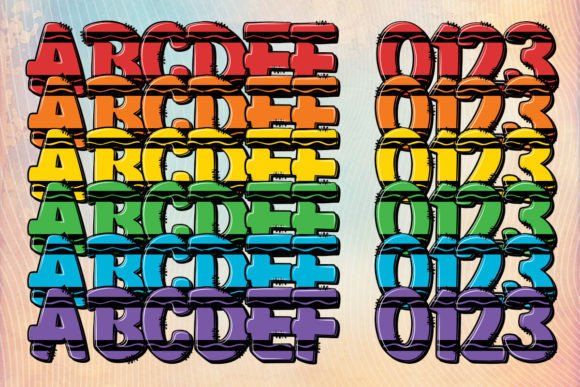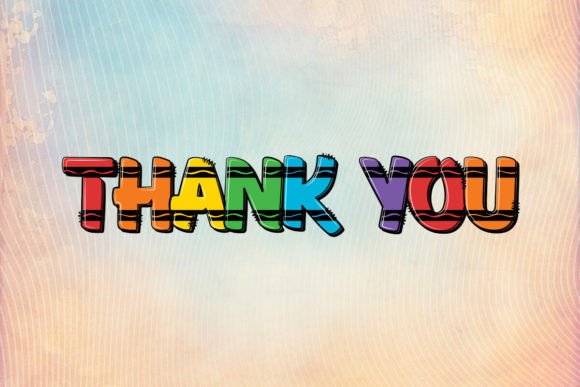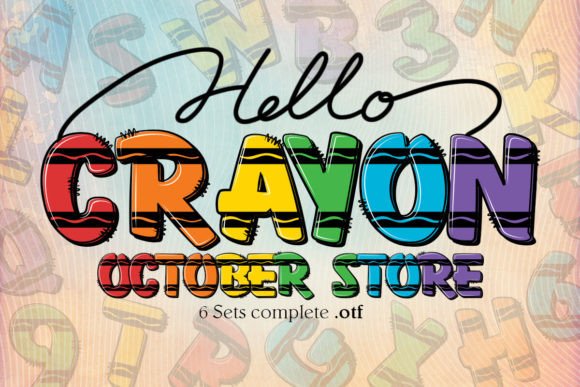
Introducing Crayon Colorful: A Whimsical Font that Unleashes Creativity
Are you ready to add a pop of color and creativity to your DIY projects, crafts, and designs? Look no further than “Crayon Colorful”, a playful font that brings the vibrant world of school artistry to life. This delightful font is perfect for designers, crafters, and artists who want to infuse their work with a sense of imagination and fun.
A Font that Captures the Magic of School Artistry
“Crayon Colorful” is a font that embodies the creativity and imagination of students. With its 6 styles and 6 colors, this font is designed to inspire artists of all ages. Each letter is shaped like a crayon, adding a touch of whimsy and playfulness to any design. Whether you’re working on a custom DIY craft project, creating personalized names, or designing posters, “Crayon Colorful” offers endless possibilities for creative expression.
10 Colorful Fonts to Spark Your Imagination
One of the most exciting features of “Crayon Colorful” is its range of 10 different color fonts. Each font is carefully crafted to showcase a unique color palette, allowing you to choose the perfect shade to match your design. From bright and bold hues to softer pastels, “Crayon Colorful” has a color to suit every style and theme.
So, what can you create with “Crayon Colorful”? The possibilities are endless! Here are a few ideas to get you started:
- Custom DIY craft projects: Add a personal touch to your crafts with colorful text and letters.
- Personalized names: Create unique and colorful name tags for kids’ rooms, lockers, or party favors.
- Sublimations: Use “Crayon Colorful” to create vibrant sublimation designs for t-shirts, mugs, and more.
- Posters: Design eye-catching posters for schools, events, or promotions.
Unleash the Artist Within
“Crayon Colorful” is more than just a font – it’s a tool for creative expression. With its playful design and vibrant colors, this font invites you to let your imagination run wild and unleash the artist within. So why settle for ordinary designs when you can create something extraordinary with “Crayon Colorful”?
Get Ready to Create Something Amazing
With “Crayon Colorful”, the possibilities are endless. Whether you’re a designer, crafter, or artist, this font is sure to inspire you to create something amazing. So go ahead, get creative, and show the world what you’re made of!